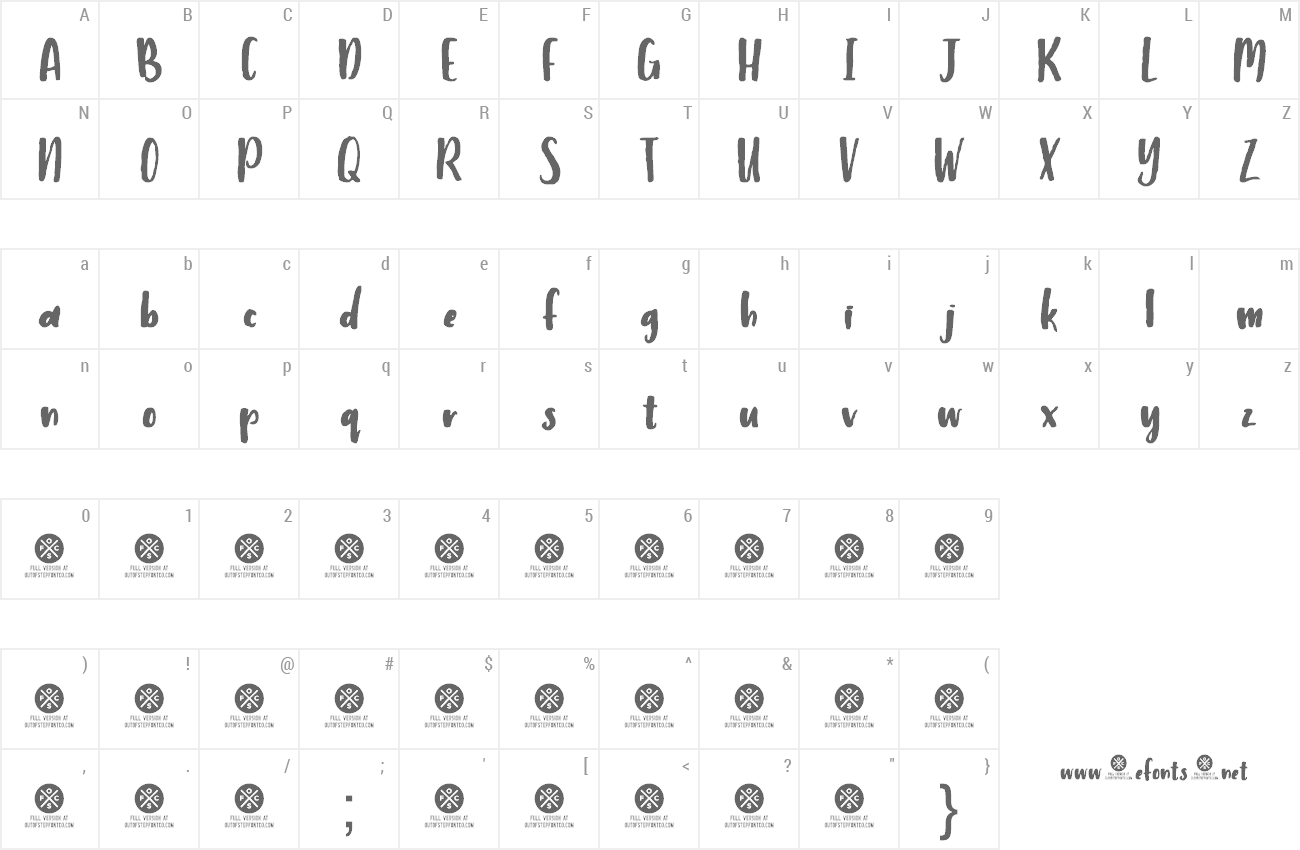
Humbley Script is a fun, hand-drawn modern calligraphy script. Humbley was designed for Etsy sellers, poster printers, and anyone else looking to add a little fun to their projects. Humbley features a ton of accented characters, making it a great way to represent plenty of European languages. We're sure that Humbley will be just what you need to make inspirational postcards, art prints, home decor pieces, and other graphic design projects. Full version: https://outofstepfontco.com/products/humbley-script Download over 30 free, demo, and personal use fonts from our Resource Library: https://outofstepfontco.com |